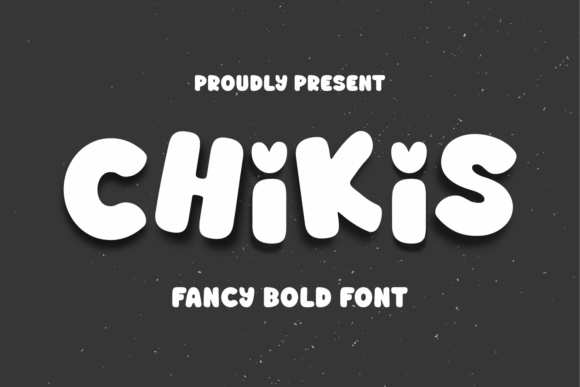
Discover the Bold Elegance of Chikis Font: Elevate Your Designs with a Unique Typeface
In the vast and ever-evolving world of typography, certain fonts stand out for their ability to transform and elevate design. Among these, the Chikis font emerges as a brilliantly bold typeface, instantly uplifting design masterpieces with its distinctive characteristics. This article aims to immerse you in the dynamic world of Chikis font, exploring its unique features, and understanding how it can be the perfect choice for achieving that striking design impact.
The Distinctive Features of Chikis Font
Chikis font is characterized by its round shape and distinct character design, making it a standout in the realm of typefaces. Its fluidity and smooth lines contribute to an appealing aesthetic that not only captures attention but also enhances comprehension. The uniqueness of Chikis lies in its ability to transform any text into visually pleasing and unforgettable messages. This is achieved through its bold appearance and the elegance it brings to any design.
The Power of Bold Typography: Chikis Leading the Way
Bold typography has the power to make or break a design. It can serve as a focal point, drawing viewers’ attention and making a lasting impression. Chikis font, with its strikingly bold appearance, is perfectly suited for designers looking to make a statement. Its inherently unique design ensures that your work stands out from the crowd, offering a contemporary elegance that is hard to replicate.
Why Choose Chikis Font for Your Designs?
When it comes to selecting a font for your design projects, the choices can be overwhelming. However, Chikis font offers several compelling reasons to be your top pick:
- Unique and Stylish: Chikis brings a unique style to the table, setting it apart from more traditional typefaces.
- Versatility: Its bold yet elegant appearance makes it suitable for a wide range of design projects, from branding and advertising to digital media and print.
- Enhanced Aesthetics: The fluidity and round shapes of Chikis add an appealing touch to any text, enhancing the overall aesthetics of your design.
- Improved Comprehension: The distinct character design of Chikis not only makes your text more readable but also aids in comprehension, ensuring your message is effectively communicated.
Applications of Chikis Font
The versatility of Chikis font makes it suitable for various applications, including:
- Branding: Use Chikis to create memorable brand names and taglines that stand out.
- Advertising: Its bold nature makes it perfect for headlines and titles that need to grab attention.
- Digital Media: From website headers to social media posts, Chikis can elevate your digital content.
- Print Media: Whether it’s for posters, flyers, or brochures, Chikis can add a touch of elegance and boldness.
Tips for Maximizing the Impact of Chikis Font
To get the most out of Chikis font, consider the following tips:
- Pair it with Complementary Fonts: Use Chikis as a headline font and pair it with simpler fonts for body text to create a balanced look.
- Experiment with Colors: While Chikis stands out in black or bold colors, experimenting with different hues can add a unique touch to your designs.
- Consider Size and Spacing: Ensure that the text is large enough to be readable and maintain adequate spacing between lines and letters for a clean look.
Chikis font is more than just a typeface; it’s a design statement. Its bold elegance, unique character design, and versatility make it an invaluable tool for designers looking to leave a lasting impression. Whether you’re working on a branding project, advertising campaign, or digital content, Chikis has the power to transform your text into visually pleasing and unforgettable messages. Embrace the dynamic world of Chikis font and discover how it can elevate your design masterpieces to new heights.